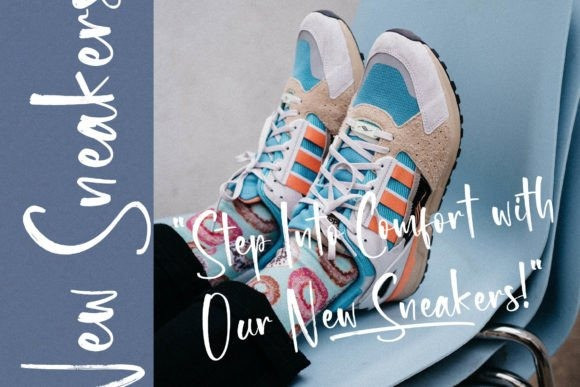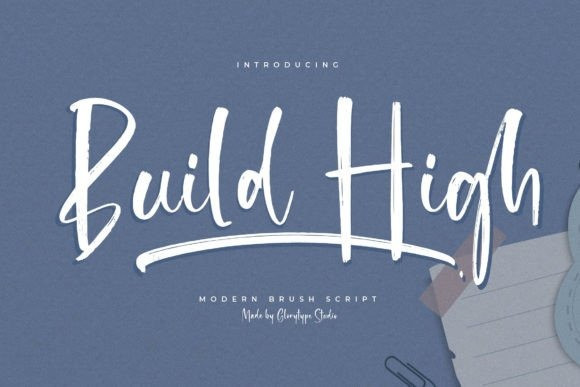
Build High Font
Build High Font – Modern Brush Script Font , from Glorytype Studio, suitable for any projects such as: logos, branding projects, homeware designs, product packaging, mugs, quotes, posters, shopping bags, t-shirts, book covers, name card, invitation cards, greeting cards, label, photography, watermark, special events, and all your other lovely projects that need a beautiful script taste.